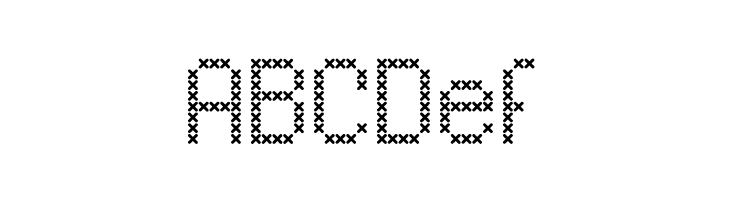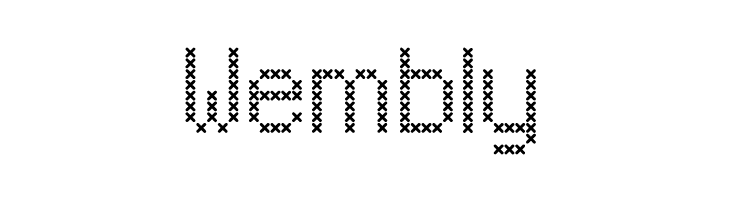
• LL_XMas
A decorative font with a cross-stitch pattern, ideal for festive designs.
• LL_XMas
A decorative font with a cross-stitch pattern, ideal for crafty designs.
• Logic twenty-five Q
• Logos tfb
A diverse set of iconic brand logos in their original typographic treatments.
• Logostile
A modern, sleek font with a futuristic and streamlined design.
• Logotronik